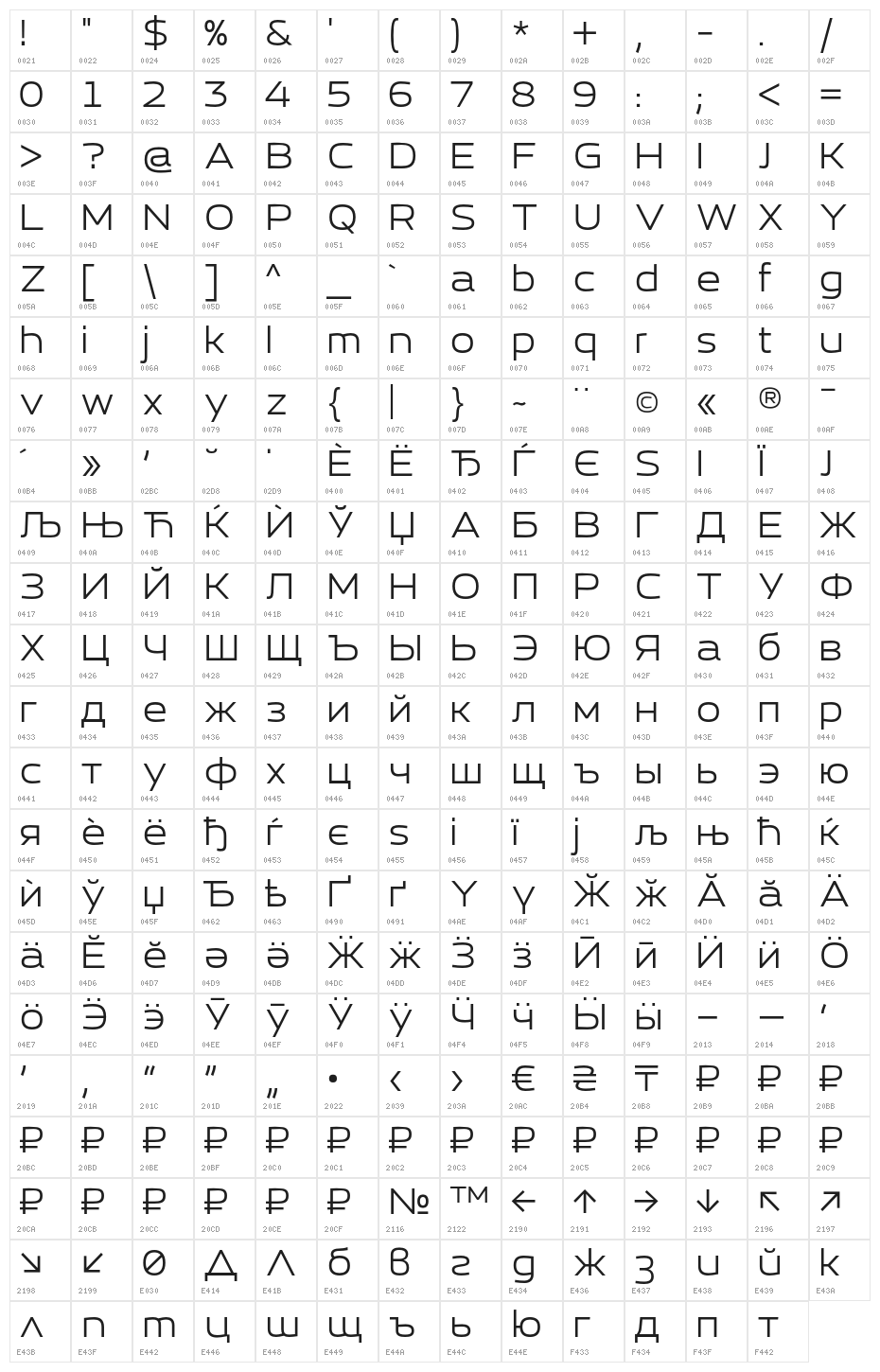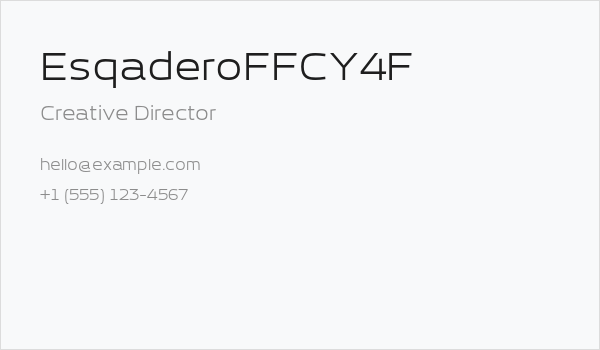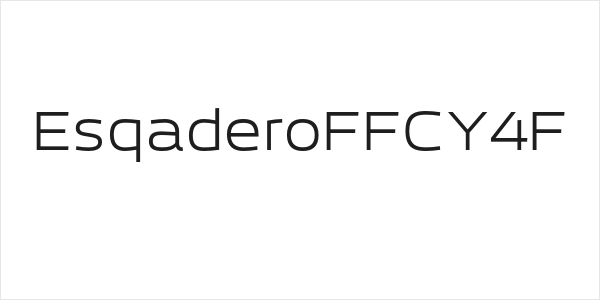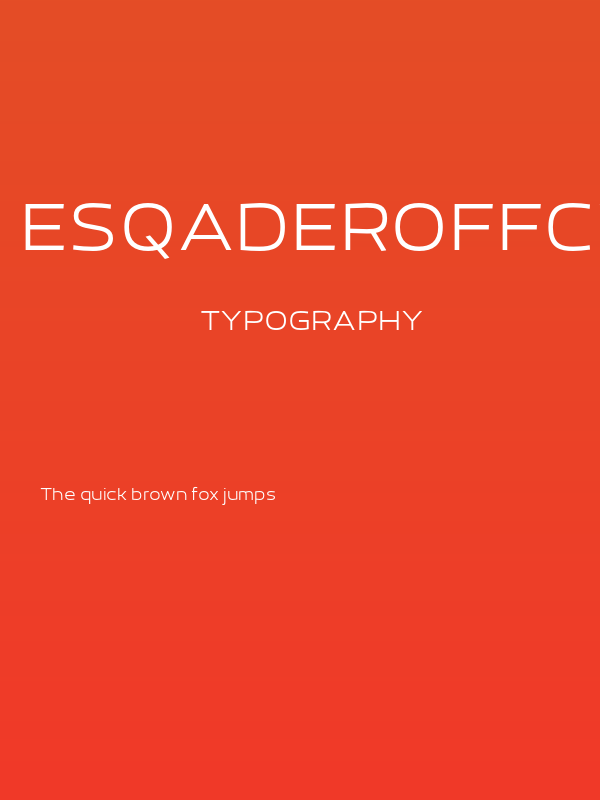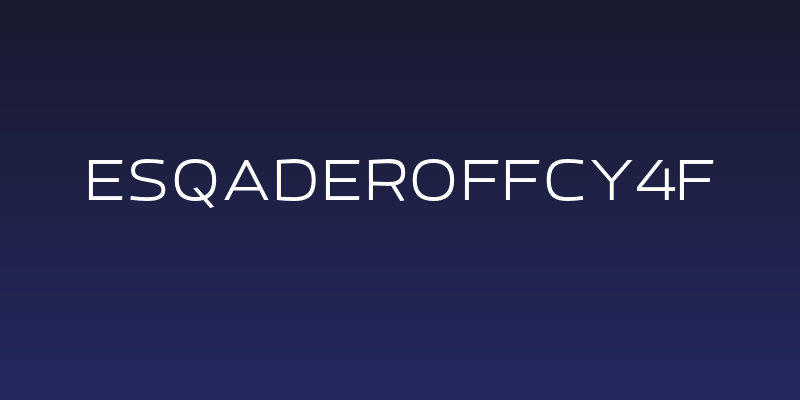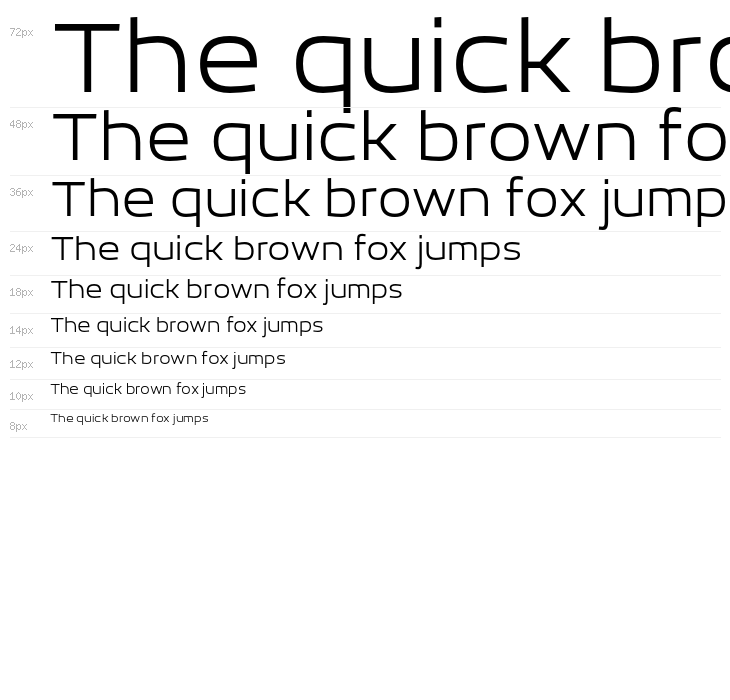
EsqaderoFFCY4F Font
EsqaderoFFCY4F Description
This font features a clean and modern sans-serif design with a geometric structure. The characters are evenly spaced, providing a balanced and harmonious appearance. The uppercase letters are bold and assertive, while the lowercase letters maintain a consistent flow with slightly rounded edges, giving a friendly yet professional look. The numerals are clear and legible, making them suitable for various applications. Special characters are well-integrated, ensuring versatility in design projects.
| Proposed Projects | Ideal for corporate branding, digital interfaces, editorial design, and advertising materials. |